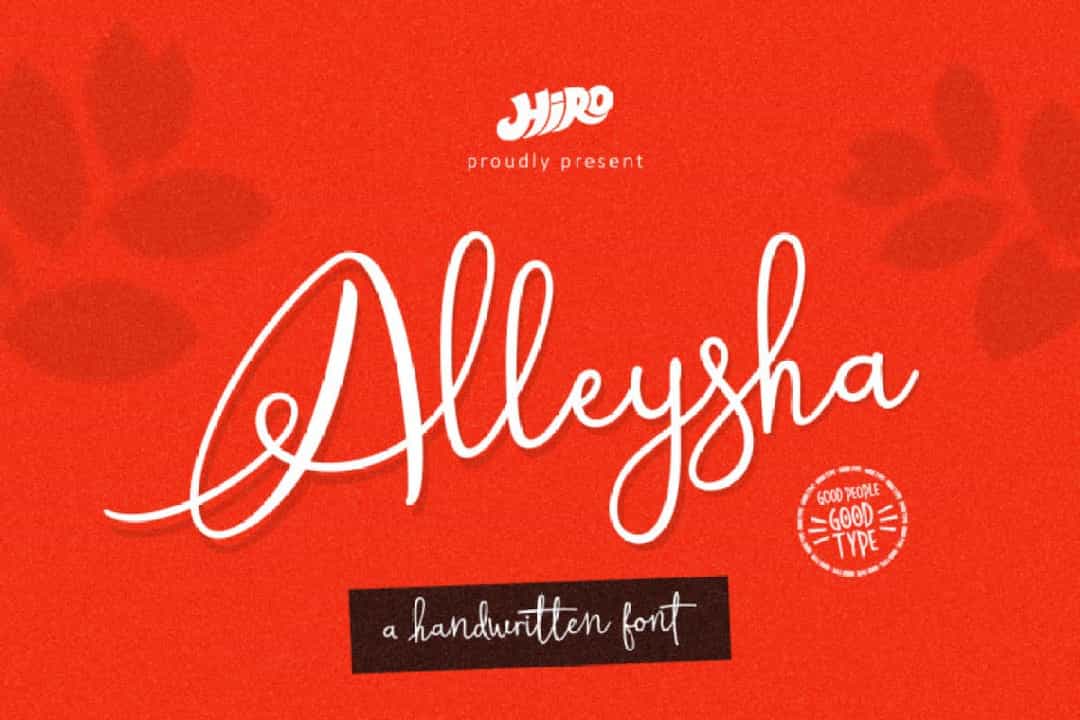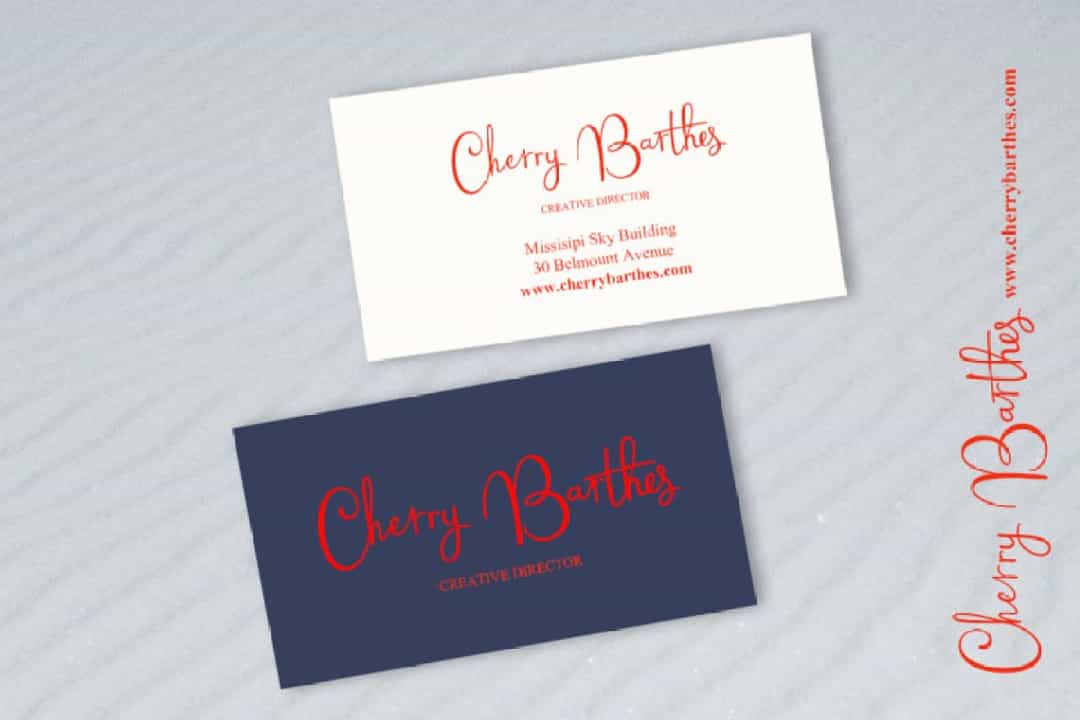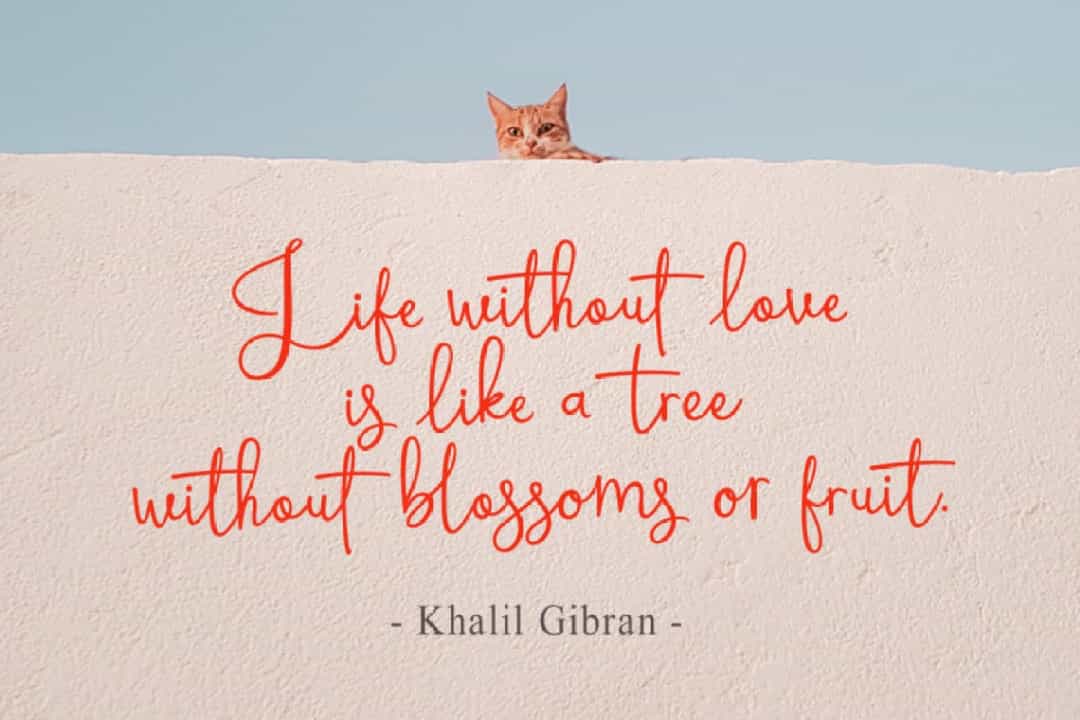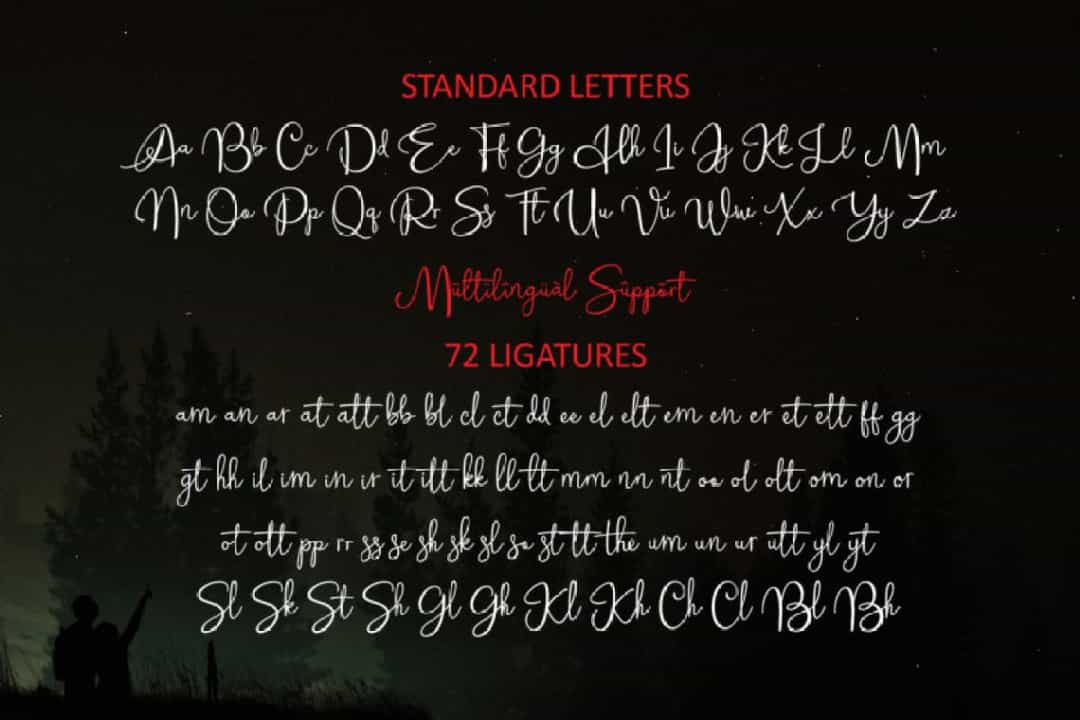
Alleysha can be described as an edgy, informal and messy easy script font featuring beautiful ligatures to give it an entirely unique handwritten appearance. While its classic calligraphic motifs remain intact while appearing contemporary and modern. There are two versions of Alleysha available; rough and clean variants. You can view other variants by visiting its gallery page.